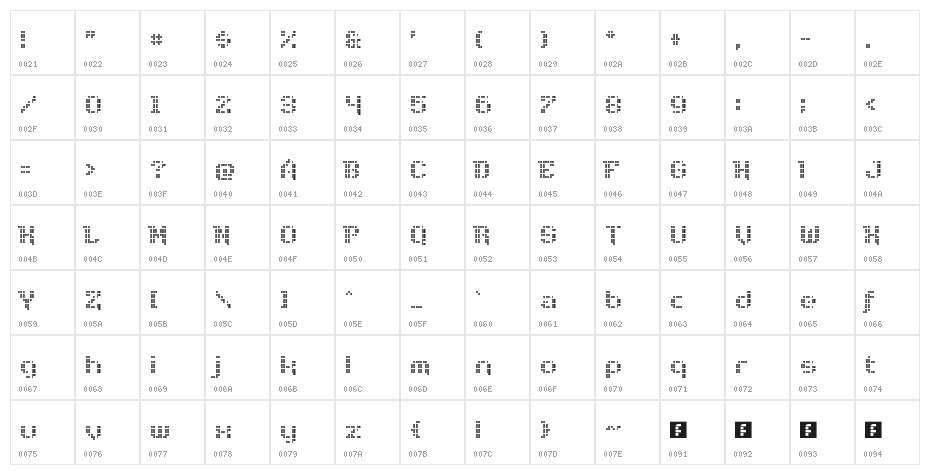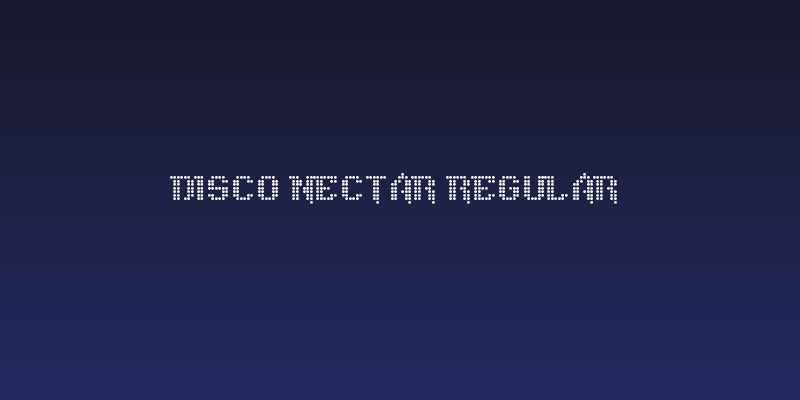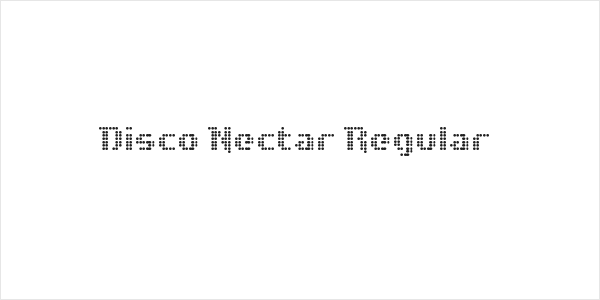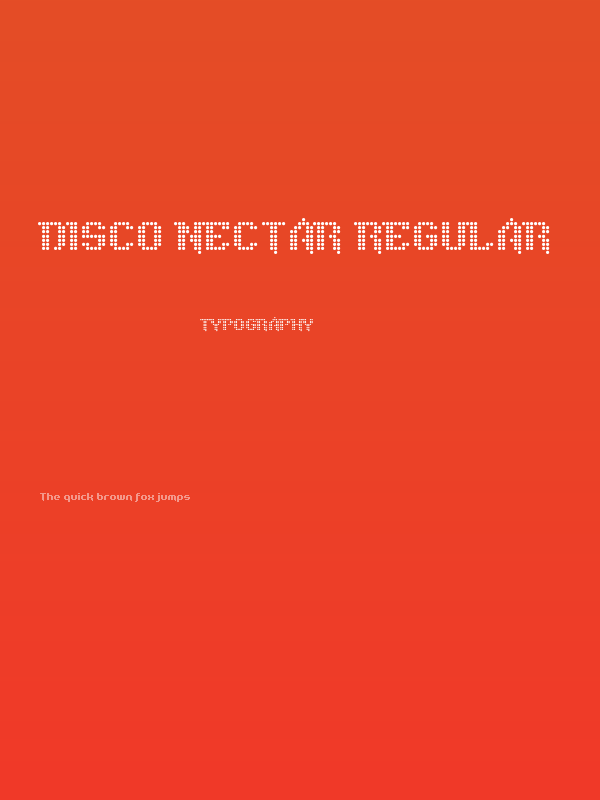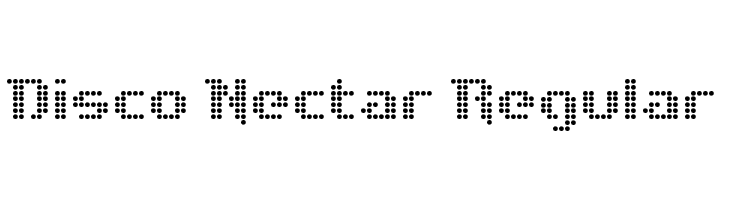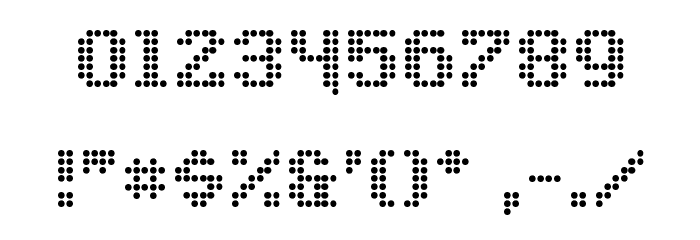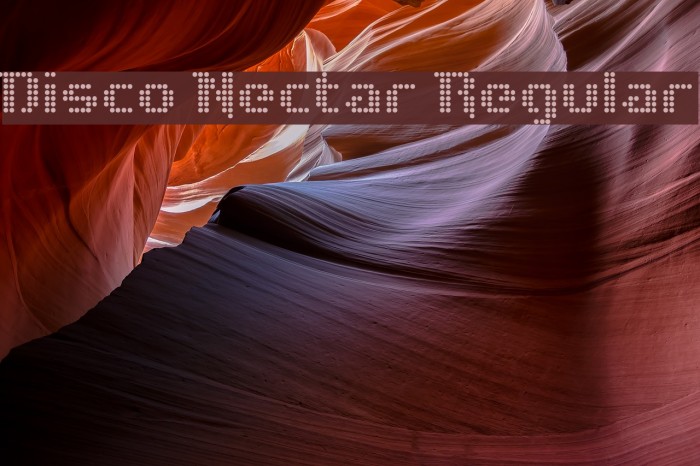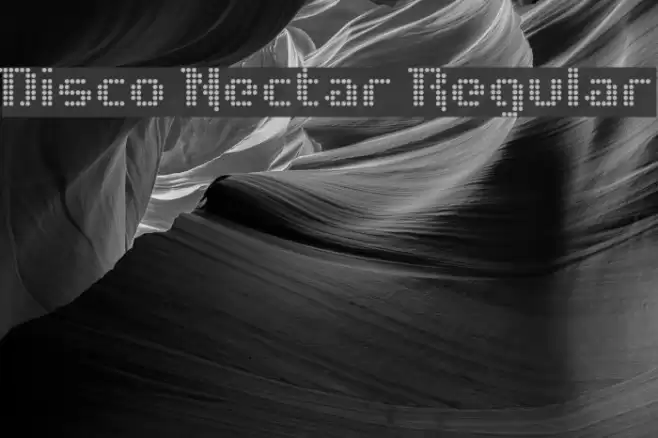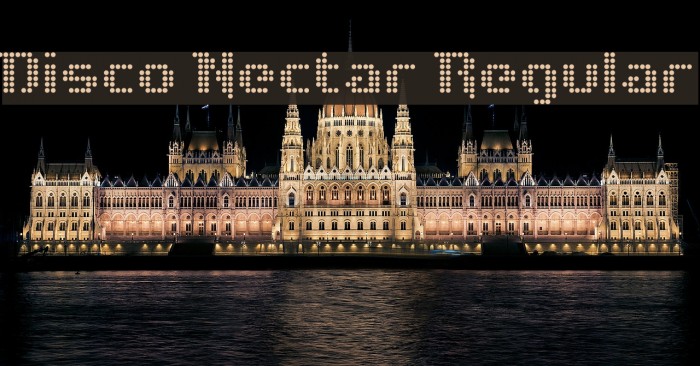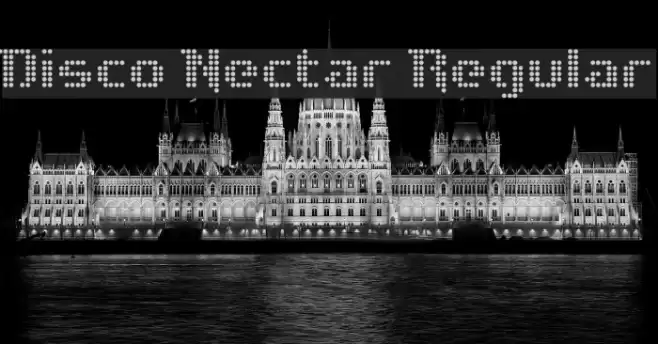
Disco Nectar Regular Font
Disco Nectar Regular Description
This font features a unique design composed entirely of small, evenly spaced dots forming each character. The style is reminiscent of digital displays or LED signs, giving it a modern and playful appearance. Each letter and number is constructed with precision, maintaining uniformity in size and spacing, which contributes to its readability despite the unconventional form. The font's geometric nature and dot-based structure make it stand out, ideal for creative and eye-catching designs. It captures a sense of fun and innovation, suitable for projects that aim to convey a futuristic or tech-savvy vibe.
| Proposed Projects | Ideal for digital displays, event posters, tech-themed branding, and creative advertising. |